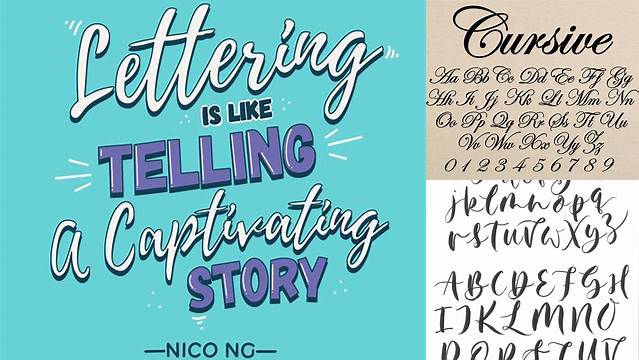
Unveiling Captivating Calligraphy Alphabet Font Styles
Hey guys, are you ready to dive into the mesmerizing world of calligraphy alphabet fonts styles? It's a journey into the art of beautiful writing, where letters transform into elegant expressions. Whether you're a seasoned artist or a curious beginner, the variety of styles within calligraphy is truly amazing. We will explore how various calligraphy alphabet fonts styles influence the overall aesthetic. Let's explore the historical context and understand how different cultures have shaped these styles. We'll learn how to choose the best fonts that fit your design needs, and we will also provide helpful tips for getting started with calligraphy. So, buckle up, because we're about to embark on an adventure that's all about strokes, curves, and the sheer joy of creating stunning lettering. This article will guide you through the fundamental aspects of various calligraphy alphabet fonts styles. We’ll see how the fonts work, from the tools used to the final result. Prepare to be inspired, as we unlock the secrets to this timeless art. We will look at different writing styles, which are important if you want to create unique designs. Get ready to explore the richness and charm that each style provides. So, let’s get started! We are going to break down some of the popular styles. Each style has its own unique traits and history. Ready to get creative and make your own beautiful calligraphy alphabet fonts styles?
Exploring the Diverse World of Calligraphy Alphabet Font Styles
Let's begin our exploration of calligraphy alphabet fonts styles. The world of calligraphy is vast and varied, offering a rich tapestry of styles that cater to every taste and project. From the classic elegance of Roman capitals to the flowing curves of modern scripts, the choices are truly endless. Guys, each style brings its unique character and charm, allowing you to express your creativity in a multitude of ways. The journey through these different styles reveals not only the technical aspects of each form but also the historical and cultural influences that have shaped them over centuries. Think of the graceful lines of Italian hand, the bold strokes of Gothic script, or the playful nature of brush lettering. Each style tells a story. Understanding these different styles of calligraphy alphabet fonts allows you to appreciate the nuances of each form. It also gives you the tools to choose the perfect style for any project. Ready to explore this creative world? When selecting a calligraphy alphabet font style, think about what you want to achieve. Do you want something formal and timeless, or something more casual and contemporary? The answer lies in the beautiful diversity of calligraphy, which is waiting to be discovered. By learning about the different styles, you will be able to choose fonts that improve your design work. So, get ready to dive into the world of calligraphy alphabet fonts and discover the perfect style to bring your artistic vision to life! In the next section, we will explore the historical roots of calligraphy styles.
The Historical Roots of Calligraphy Alphabet Fonts
Let's delve into the historical roots of calligraphy alphabet fonts. Calligraphy is a practice with deep roots, evolving over centuries and across different cultures. It's crucial to understand the historical context because it gives depth and meaning to each style. Did you know that each style reflects the eras and societies from which it originated? For example, Roman capitals, with their precise and majestic forms, were first used to engrave monumental inscriptions. They showcase the authority and grandeur of the Roman Empire. On the other hand, Gothic script, with its dramatic and angular lines, emerged during the Middle Ages. It was used extensively in religious texts and reflected the piety and seriousness of the time. The history of calligraphy is a story of influence and adaptation, with different styles interacting, influencing each other, and transforming over time. This process has led to the rich diversity we see today. Guys, understanding this history is not only fascinating, it can also inspire you when choosing your preferred calligraphy alphabet fonts styles. As you study the historical development of these fonts, you will get a deeper appreciation. It gives you a deeper understanding of the cultural significance of each font. Therefore, when you use a font, you are not just choosing a style. You’re also continuing a legacy. So, when we study the historical evolution of calligraphy, we discover that it has transformed over time. And, from the ancient scribes to modern digital designers, calligraphy continues to evolve and inspire.
Popular Calligraphy Alphabet Styles and Their Characteristics
We are now going to look at popular calligraphy alphabet fonts styles and what makes them unique. Let's jump right in and explore the various styles. Each style brings its character to your project, so it is important to understand each style to best achieve your design goals. First, we have the classic Roman capitals. These are known for their clean lines, elegant proportions, and are ideal for formal projects. Next is the Gothic script. With its sharp angles and dramatic appearance, it’s perfect for evoking a sense of history and sophistication. Then there's the Italian hand, a graceful style known for its flowing curves and delicate strokes. This style is an excellent option for romantic or elegant projects. Brush lettering offers a modern, more casual aesthetic. Its flexible strokes and expressive nature make it a good choice for personal projects and contemporary designs. Finally, the modern calligraphy style, which takes inspiration from traditional styles, but has its own contemporary flair. It offers a wide range of looks, from simple and clean to intricate and decorative. For each of these styles, you can also find variations that add more depth. These include different tools, and different types of ink, which allow for even greater flexibility. By familiarizing yourself with the characteristics of these calligraphy alphabet fonts styles, you will be better prepared to decide which will best meet your artistic needs. When it comes to choosing the right style, consider the message you want to convey, the mood you want to create, and the visual impact that you want to make. By using this knowledge, you will be ready to start making amazing designs!
Mastering the Tools: Essentials for Calligraphy Alphabet Styles
Let's talk about mastering the tools for calligraphy alphabet fonts styles. Having the right tools is crucial for success. When starting out, you do not need to break the bank. You can get started with some basic tools and gradually expand your collection. One of the most important tools is the pen. The pen can significantly impact your work. There are several types of pens, from dip pens, to brush pens, to markers. The choice depends on the style you're aiming for and your personal preference. Dip pens offer the most traditional experience. They allow for precise control over the ink flow. Brush pens are flexible and allow you to create thick and thin strokes. And markers are convenient and easy to use. Besides pens, you'll also need ink. There is a variety of inks, from traditional inks to modern options. You can experiment with different colors and effects to create unique visuals. Paper is just as important as pens and ink. Smooth, high-quality paper is the best choice. It prevents the ink from feathering or bleeding. Paper can also impact how well your pen glides across the surface. Other important tools include rulers, pencils, erasers, and guides. These help with planning and letter formation. If you are serious about your craft, then you can invest in more specialized tools. By selecting the right tools, you will be able to experiment with the various calligraphy alphabet fonts styles, and bring your vision to life!
Choosing the Right Pen for Your Calligraphy Style
Alright, guys, let’s talk about choosing the right pen for your calligraphy alphabet styles. The choice of pen is a pivotal step in achieving your desired style. The pen determines the look and feel of your lettering. The first option is the dip pen. Dip pens require you to dip the nib into ink before each stroke. This gives you precise control over the ink flow, and is great for creating fine details. Then there are brush pens, which are another popular choice. They feature a flexible nib that allows you to vary stroke width by applying pressure. This is ideal for creating bold and dynamic lettering. Brush pens are excellent for modern calligraphy and brush lettering styles. Markers are another option. They are convenient and easy to use, and they are often used for creating consistent lines. When choosing a pen, consider the style you want to achieve, as well as your comfort level. Some pens may take some time to get used to. If you're going for a classic style, a dip pen is a great choice. If you're after a modern style, a brush pen is often preferred. Experimenting with different pens is essential to find what works best for you. Explore the different nibs, the ink flow, and how the pen feels in your hand. You might find that you prefer a combination of pens for different effects. By exploring the different pens, you will have a better sense of the various calligraphy alphabet fonts styles and their unique attributes!
Exploring Different Ink Types and Their Effects
Let's explore different ink types and their effects on the various calligraphy alphabet fonts styles. The type of ink you use has a huge impact on the final look. Think about how the ink flows, the color, and the effects it can create. Traditional inks are made from carbon-based pigments and give a classic look. These are great for achieving sharp, crisp lines. They come in a variety of colors, and can be used with dip pens. Modern inks include metallic inks, shimmer inks, and colored inks. Metallic inks add a touch of shine. Shimmer inks have particles that create a beautiful effect. Colored inks allow you to add a specific look to your calligraphy alphabet fonts styles. When choosing an ink, consider the style you're aiming for. Are you going for a formal look, or something more playful? Also, think about the paper you are using. Some inks work best on smooth paper, while others may work better on textured surfaces. Experimenting with different inks is key to discovering your personal style. Try mixing and matching different colors and effects. You can also experiment with diluting the ink to create different shades and transparencies. By understanding the various ink types and their effects, you can take your calligraphy to the next level, and unlock the creative possibilities that each style has to offer. So, dive in and discover the ink that will work best for your style!
Paper Selection: The Foundation of Beautiful Calligraphy
Guys, paper selection is the foundation of all your calligraphy alphabet fonts styles. The right paper will enhance your work. It can also impact how well your ink flows, and how the final result appears. Choose the wrong paper, and you could have smudging or feathering. There are many types of papers that you can use, from smooth, to textured, to watercolor papers. Smooth paper is ideal for many calligraphy styles. It allows the pen to glide easily, and it is less likely to cause ink to bleed or feather. Textured paper adds visual interest. However, it may cause the ink to feather. Watercolor paper is great for wet techniques. It is thicker and more absorbent. It is able to handle the ink and water without buckling. When choosing paper, consider the ink you are using. Some inks work best on smooth paper, while others are better suited for textured surfaces. Also, consider the look you want to achieve. Smooth paper gives a clean, sharp look, while textured paper can create a more artistic and unique feel. Also, the paper's weight matters. Thicker paper is better for wet techniques, while lighter papers may work for dry methods. Experiment with different types of paper to discover which ones best suit your style and technique. The goal is to find the paper that will allow you to create your vision. With the right paper, you are on your way to creating beautiful and stunning calligraphy alphabet fonts styles.
Mastering the Basics: Letter Formation and Techniques
Now let's dive into the basics of letter formation and techniques for calligraphy alphabet fonts styles. Whether you are a beginner or an experienced calligrapher, mastering the fundamentals is key. First, you need to understand the basic strokes that make up each letter. These strokes are the foundation of your work. Learn how to create these strokes, as this will make it easier to write letters. Then, you need to practice the correct angle and pressure. This will enable you to create the correct strokes. The next step is to learn the letterforms. Every style has its own shapes and features. Study these letterforms, and learn the specific details of each letter. Practice regularly, and focus on precision and consistency. Consistency is key to getting good results. You can also learn about spacing. The spacing between letters can affect the final look, so experiment with spacing. Practice the principles of letter formation regularly, and you will start to see improvement. Remember, the more you practice, the better you will get. Let's get started and unlock the creative potential that's within you!
Common Mistakes to Avoid in Calligraphy Practice
Now, let's look at common mistakes to avoid in calligraphy practice for calligraphy alphabet fonts styles. Avoiding these mistakes will help you improve. The first thing is to avoid using too much pressure. This can cause your ink to feather, and it can ruin your design. Another thing is to avoid rushing. Calligraphy requires patience and precision, so take your time. Make sure that you are properly preparing your work. You can start by preparing your paper. Make sure your paper is smooth. You should also make sure you have a clean pen. Make sure you are holding the pen at the correct angle. Another issue is not practicing regularly. Regular practice is key to improving your skills. You should also avoid comparing yourself to others. Everyone has their own style. It is important to be yourself. If you avoid these mistakes, you will be able to improve your skills. By avoiding these errors, you will be able to develop your own unique style, and enjoy your journey!